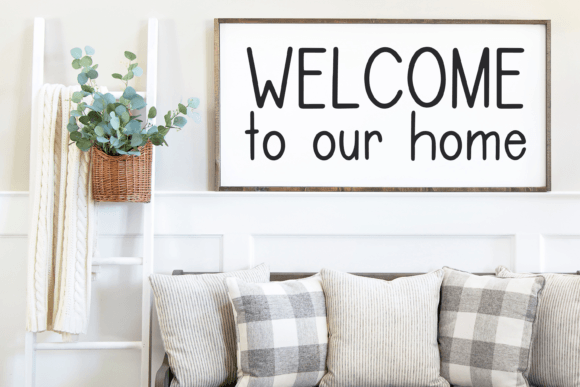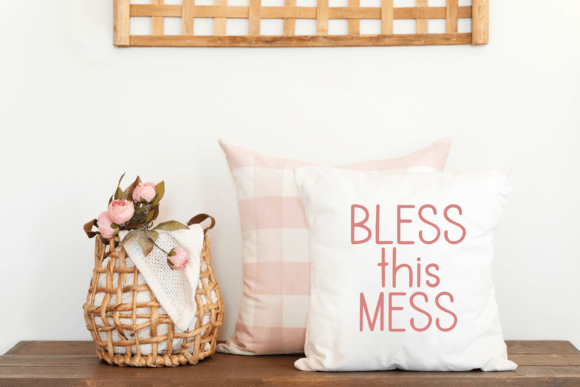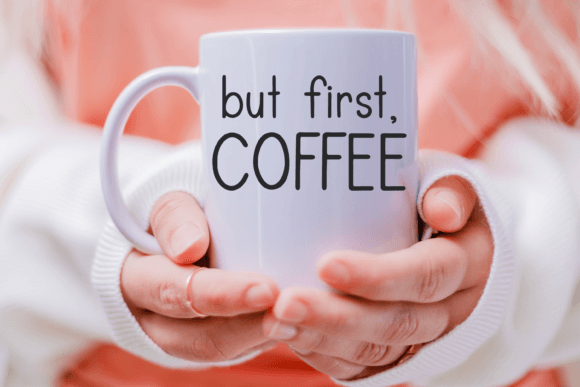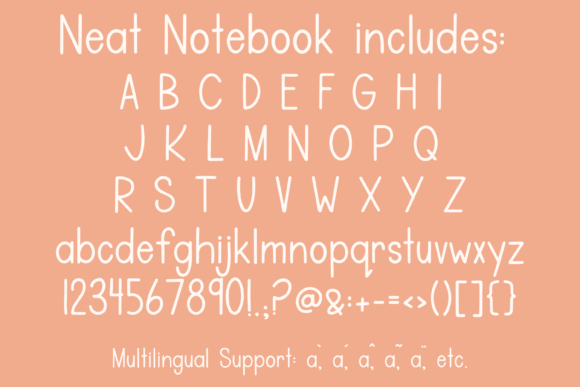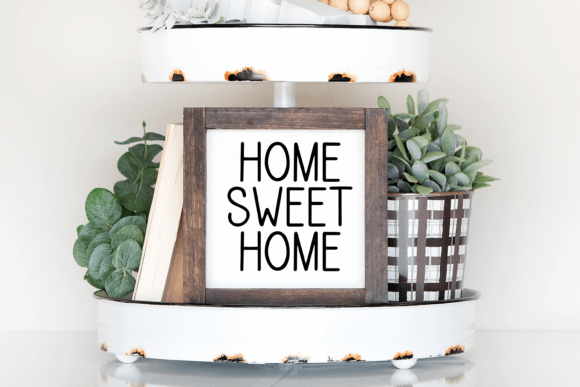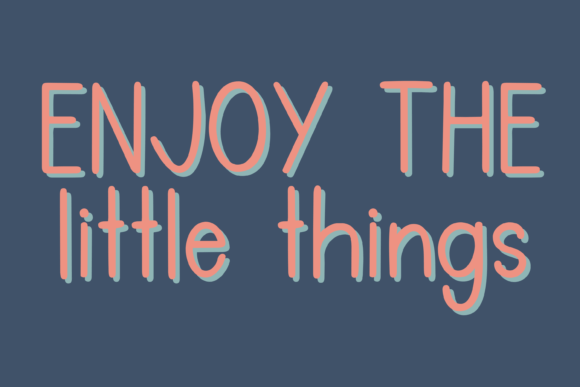
Introduction to Neat Notebook Font
Do you remember the thrill of scribbling in your favorite notebook as a child? The way your handwriting flowed effortlessly onto the page, bringing your imagination to life? As a designer, you may be looking for a way to capture that same magic in your creative projects. Look no further than the Neat Notebook Font, a charming and cute handwritten font designed specifically for Cricut.
This delightful font is a game-changer for designers, offering a unique and personalized touch to your projects. Whether you’re crafting cards, scrapbooking, or designing SVG files, the Neat Notebook Font is the perfect design resource to elevate your creations. With its transparent background and high-quality design, this font is compatible with a range of programs, including Cricut SVGs, Goodnotes, and Procreate.
Key Features of Neat Notebook Font
- High-quality font design, perfect for creative projects and design resources.
- Comes with a transparent background, allowing for seamless integration with your design.
- Features a unique, hand-drawn style with subtle imperfections, giving your design a personal touch.
- Available in a range of sizes, from 12pt to 72pt, allowing for flexibility in your design project.
- Designed at a high resolution of 300 DPI, ensuring crisp and clear text output.
Honest Review: Neat Notebook Font
As a designer, I’m always on the lookout for high-quality design resources to enhance my creative projects. Recently, I stumbled upon the Neat Notebook Font, which has become a valuable addition to my design toolkit. The free download offers a range of elegant and sophisticated lettering styles that can elevate any project.
The font’s transparent background makes it perfect for layered designs, and its high-quality rendering ensures crisp and clear typography. I particularly appreciate the flexibility of the font, which allows me to easily customize it to suit my design needs.
- What works well: ✨ The font’s clean and minimalist design makes it a great choice for modern projects.
However, I do have one minor gripe: the font selection could be more extensive. Some users may find the limited number of styles restrictive, especially for larger projects.
Overall, I’m thoroughly impressed with the Neat Notebook Font. Its high quality, flexibility, and transparent background make it an excellent addition to any designer’s toolkit. While it may not be perfect, its strengths far outweigh its limitations.
- Limitation: ⚠️ Limited font selection
Neat Notebook Font
Tips for Getting the Most Out of Neat Notebook Font
Use the Neat Notebook Font on a transparent background to create a unique and eye-catching design. Experiment with different font sizes and colors to add depth and visual interest to your project. You can also use this font in combination with other design elements to create a cohesive and stylish design.
The Neat Notebook Font is perfect for creating invitations, flyers, and other marketing materials. You can also use this font in digital designs, such as social media graphics and email templates. Additionally, this font can be used in educational and personal projects, such as journals and planners.